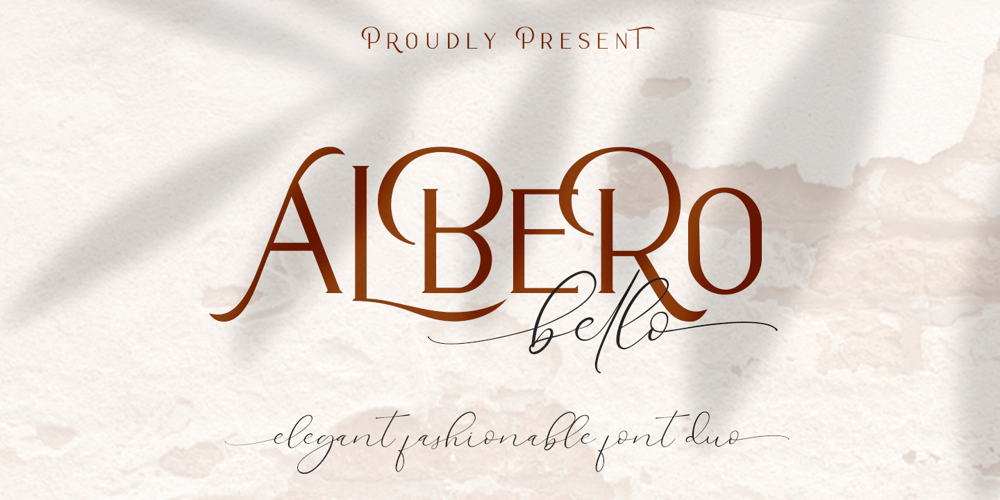
Alberobello Serif Font Family was designed by Sarwo Edhi Prayitno and published by Haksen. Alberobello Serif contains 2 styles and family package options. Introduce Elegant and modern font duo in Alberobello the stylish modern and natural fonts combination with casual chic flair.These are perfect for branding, wedding invites and cards, and more option for your requirement.Alberobello include two font styles with full set of gorgeous lowercase for script and elegant uppercase letters for serif, numerals, a large range of punctuation and ligatures. All lowercase of script include begining and ending alternates, giving realistic hand-lettered style.In order to use the beautiful begining and ending alternates for script also uppercase alternate for serif, you need a program that supports OpenType features such as Adobe Illustrator CS, Adobe Photoshop CC, Adobe Indesign and Corel Draw. but if your software doesn’t have Glyphs panel, you can install additional swashes font files.Thanks and have a great day,Haksen